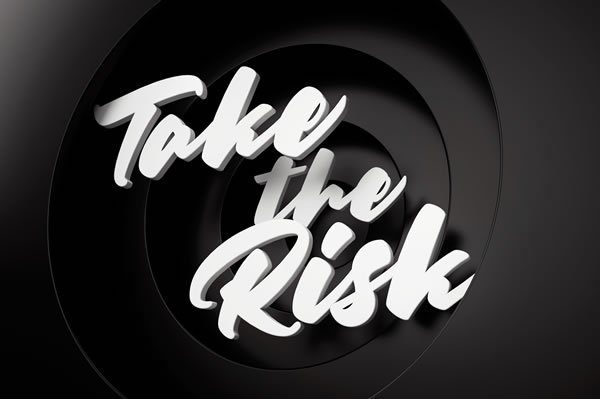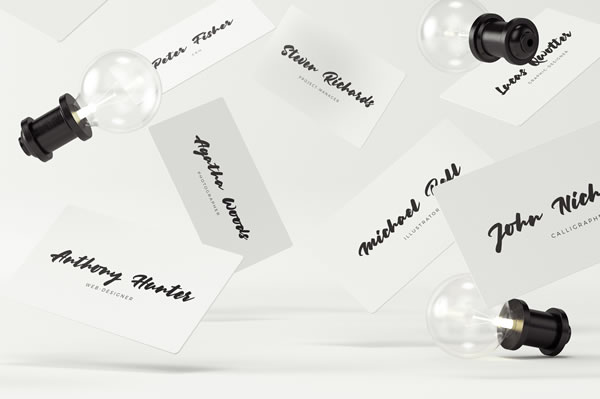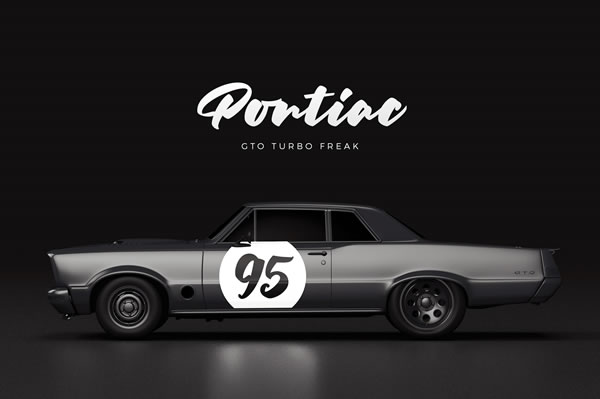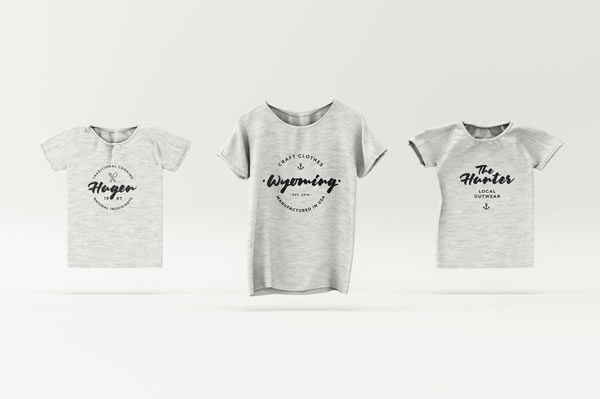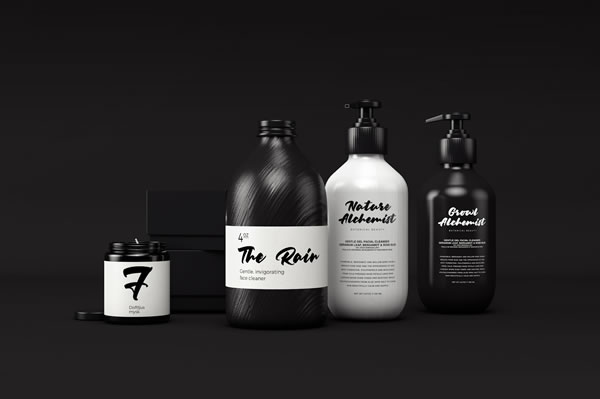
Keyline Font
About Keyline Font
The Keyline script typeface is a stunning handwritten marker font that comes with a full set of upper- and lowercase characters.